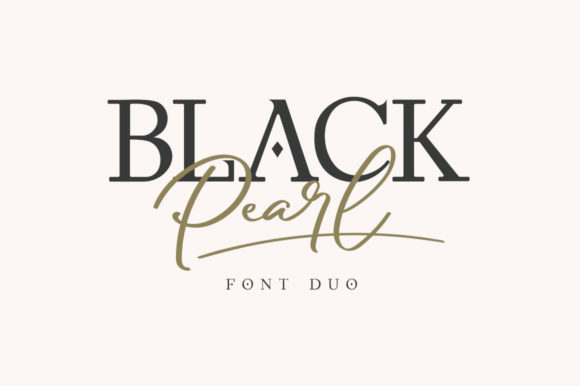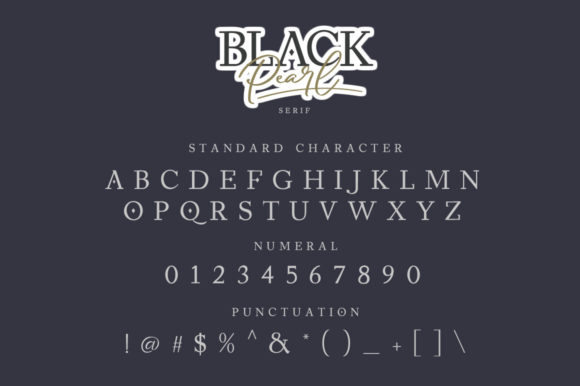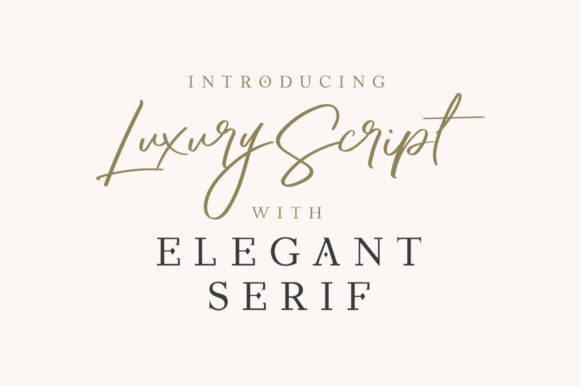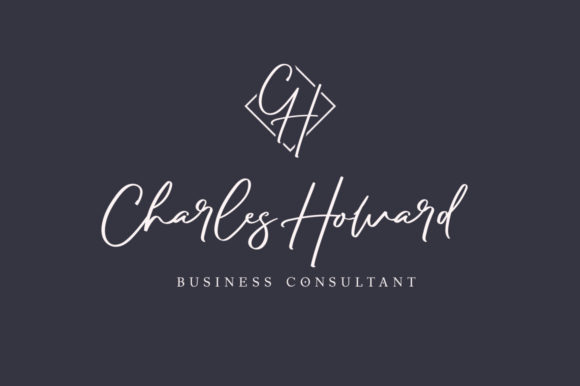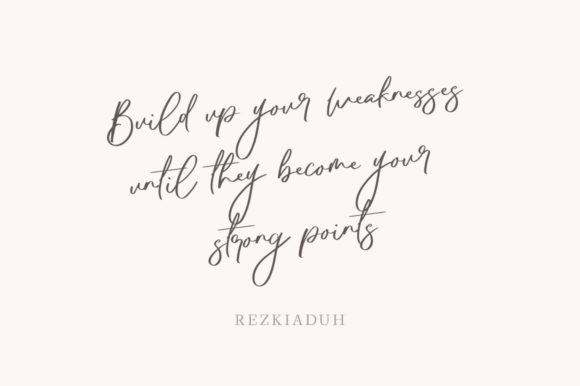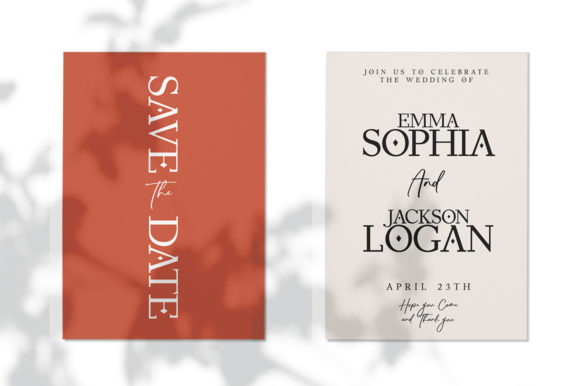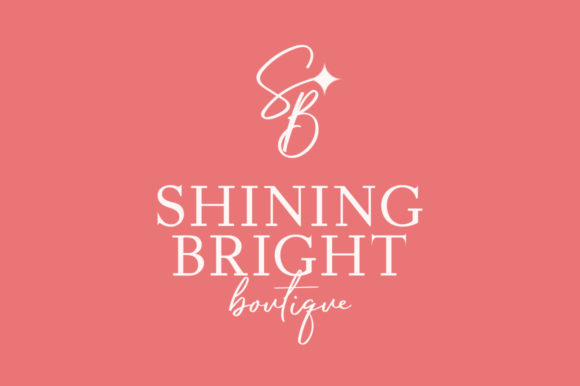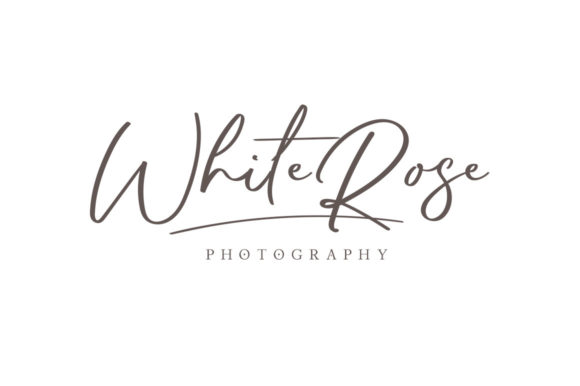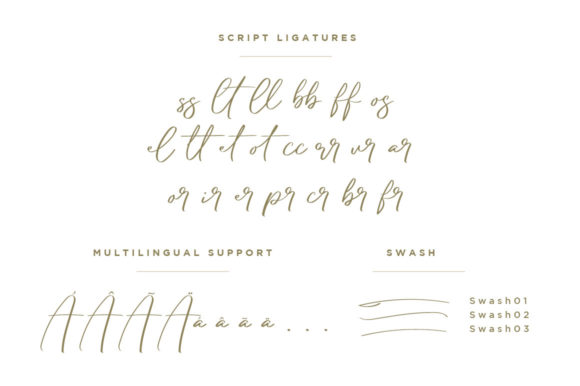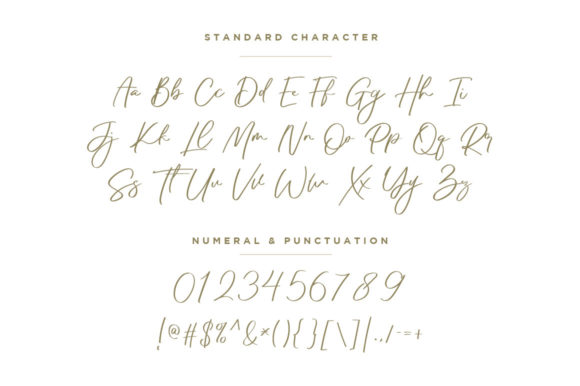
Black Pearl Font
About Black Pearl Font
Black Pearl is a lovely duo font (serif and script). This versatile script font has a wide spectrum of applications ranging from greeting cards to headlines and is guaranteed to add a romantic feel to your next project.
Black Pearl is PUA encoded which means you can access all of the beautiful glyphs and swashes with ease!